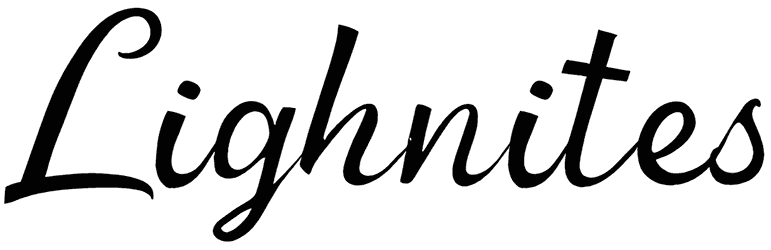
Lighnites Font
Lighnites is a cursive script font that would be your survivor in the middle of critical projects and lets you demonstrate your artistic talent by designing high-end blog posts, digital banners, street posters, flyers, or business cards. This invitation font delivers a feeling of delicacy, tenderness, dynamism, or personalization; thus, it really deserves to be your first option in the realm of creating captivating artwork.